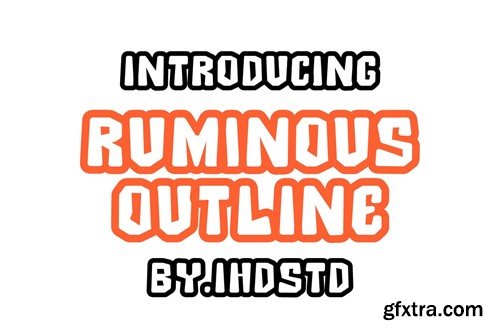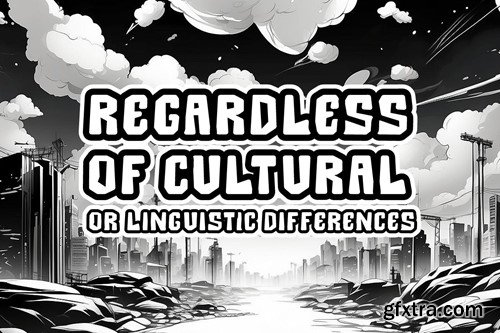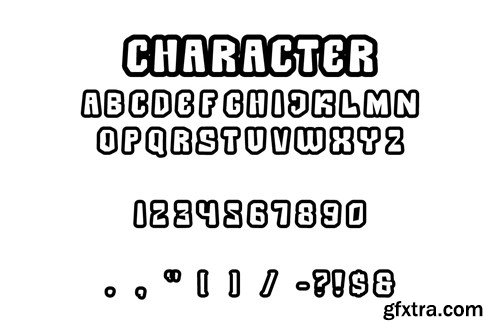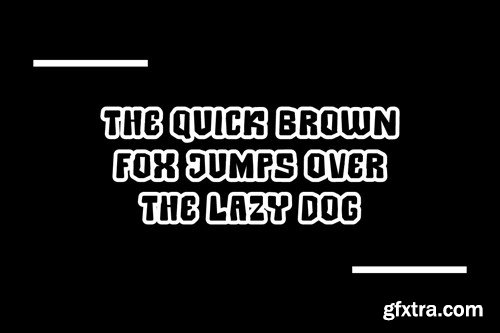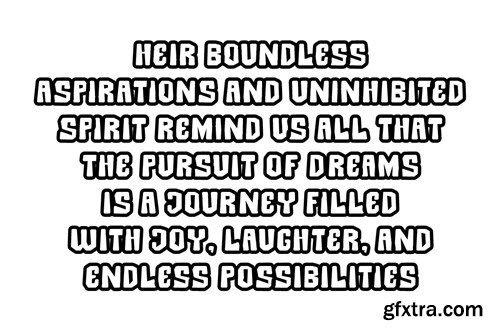
柔语轮廓字体 89AV67Y
Ruminous Outline Display Font 89AV67Y
Ruminous Outline Display Font
Ruminous Outline a Display Font Display font is our new item suitable for your Posters.
Great for Logo, Poster, Sticker, Jerseys, Invitation Card, Brochure, etc.